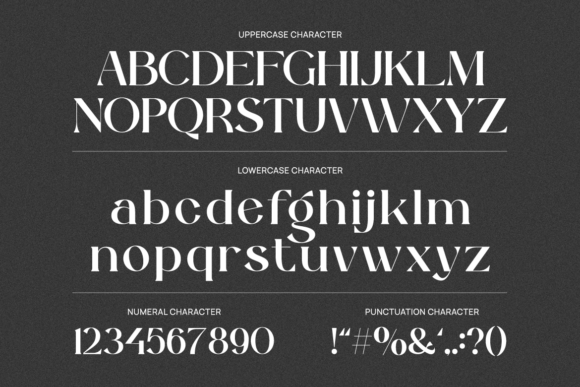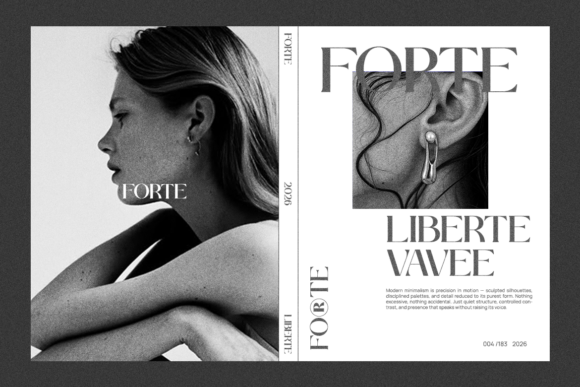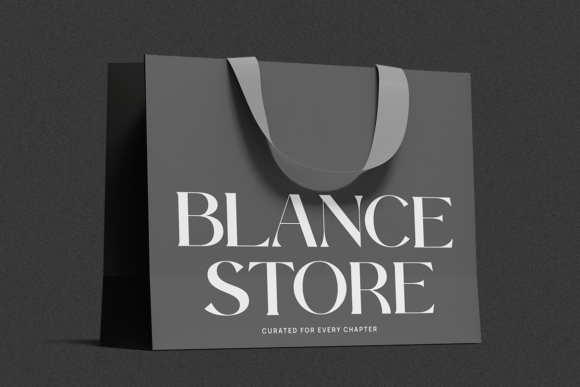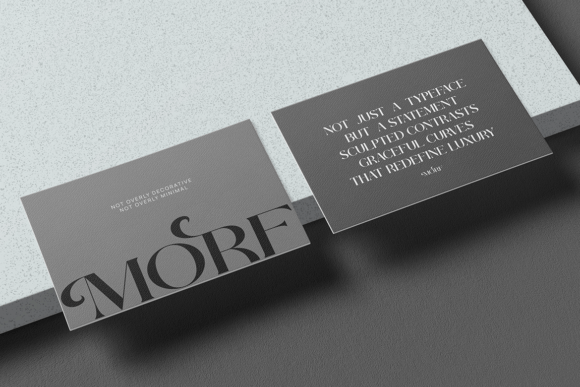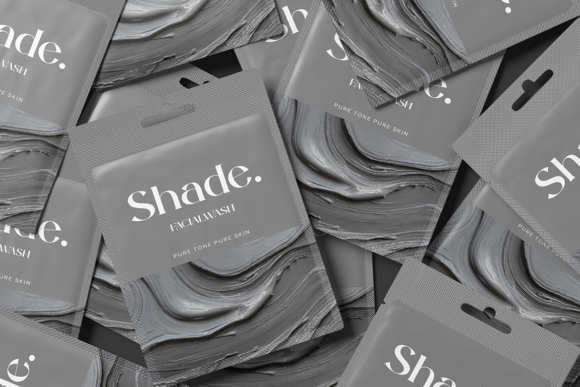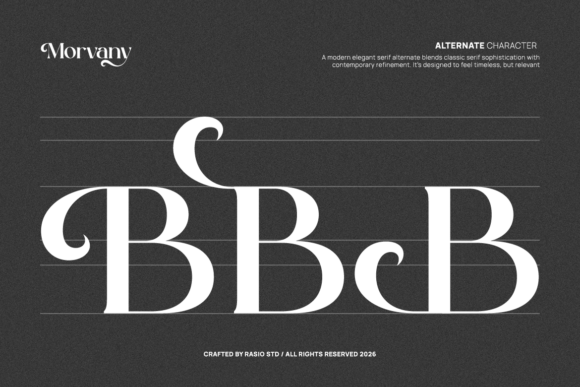
Introduction to Morvany Font
Morvany is a modern elegant serif typeface that blends timeless sophistication with contemporary refinement.
Designed with high-contrast strokes, graceful curves, and refined serif detailing, this typeface delivers a luxurious yet balanced aesthetic Morvany is crafted for high-end branding and premium visual identity systems.